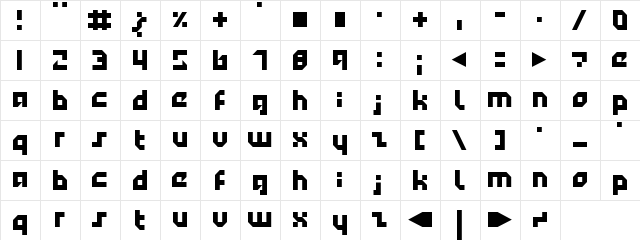
Technotot Regular
| Designer | Darrell Flood |
Design Context for Technotot Typeface
Technotot has a distinctly futuristic character, with geometric precision and clean angles that feel at home in technology, gaming, and sci-fi contexts.